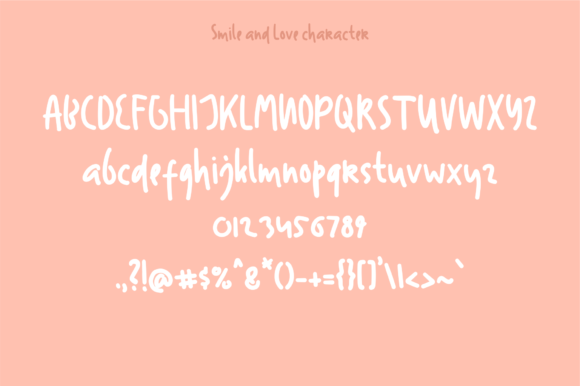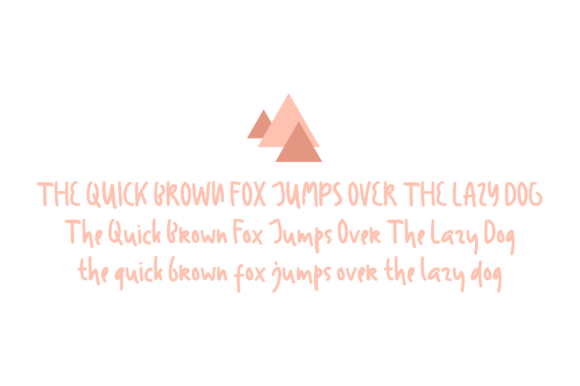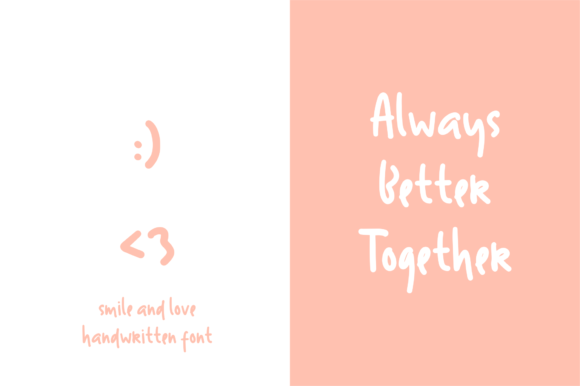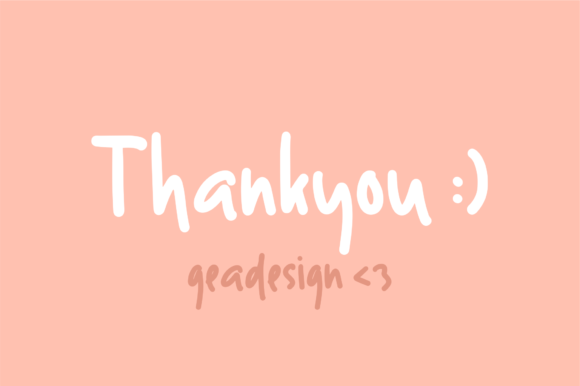
Introduction to Smile and Love Font
Smile and Love is an incredibly happy and cheerful script with a casual twist.
Key Features of Smile and Love Font